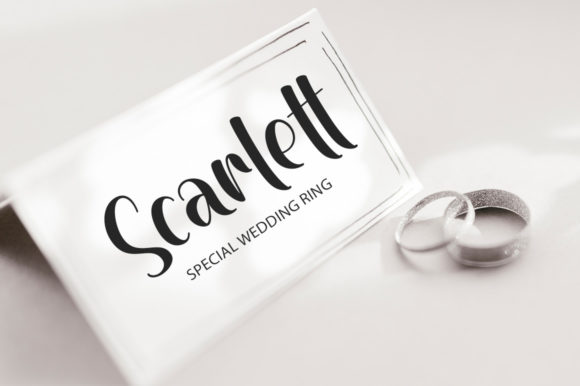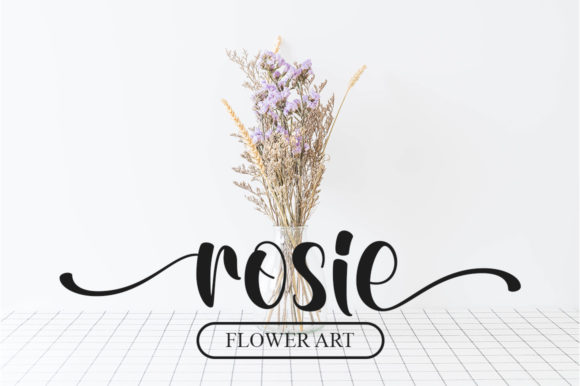
Yemila Font
db-ku.com - Script & Handwritten -- Yemila is a lovely and timeless handwritten font. It is the best choice for creating eye catching logos, branding and quotes. Yocelin is PUA encoded which means you can access all of the glyphs and swashes with ease!